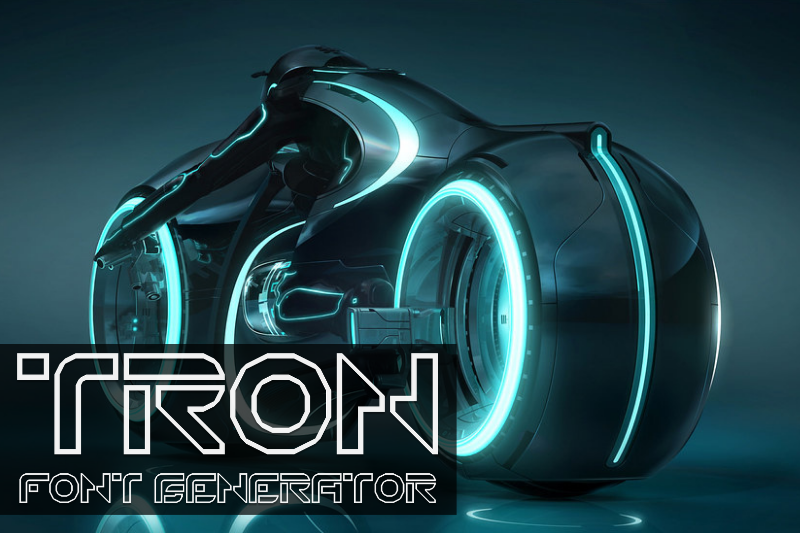
Tron Font Generator
Render your text in Tron's iconic neon-grid style with our free Tron font generator β€” glowing digital lettering ready to download in seconds.
About the Tron Font Generator
Tron introduced the world to a visual language built entirely on glowing wireframes, neon light cycles, and a sleek digital-grid aesthetic that still feels cutting-edge decades later. Tron-style typography channels that world β€” clean geometric letterforms lit from within by electric blue and cyan light, looking like they belong on the surface of a data disc.
• Sci-fi themed event posters and party invitations
• Gaming and tech startup branding concepts
• YouTube thumbnails and gaming channel art
• Futuristic costume and prop labeling
• Digital art and wallpaper design projects